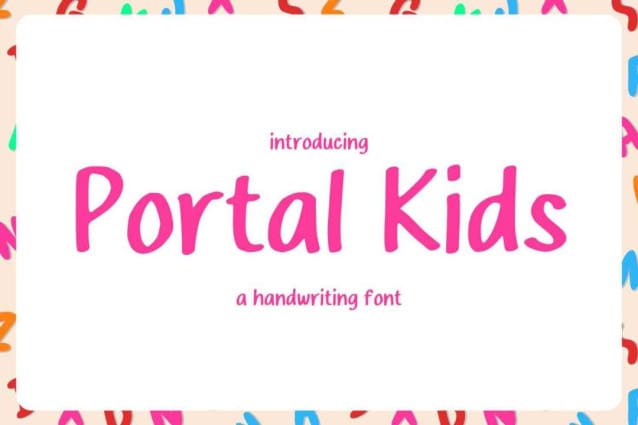
Portal Kids Font
Portal Kids Font is a sweet and friendly handwritten font. Cute and fun, this font is ideal for writing wedding invitations, cards, or any other design that might need a fun touch!